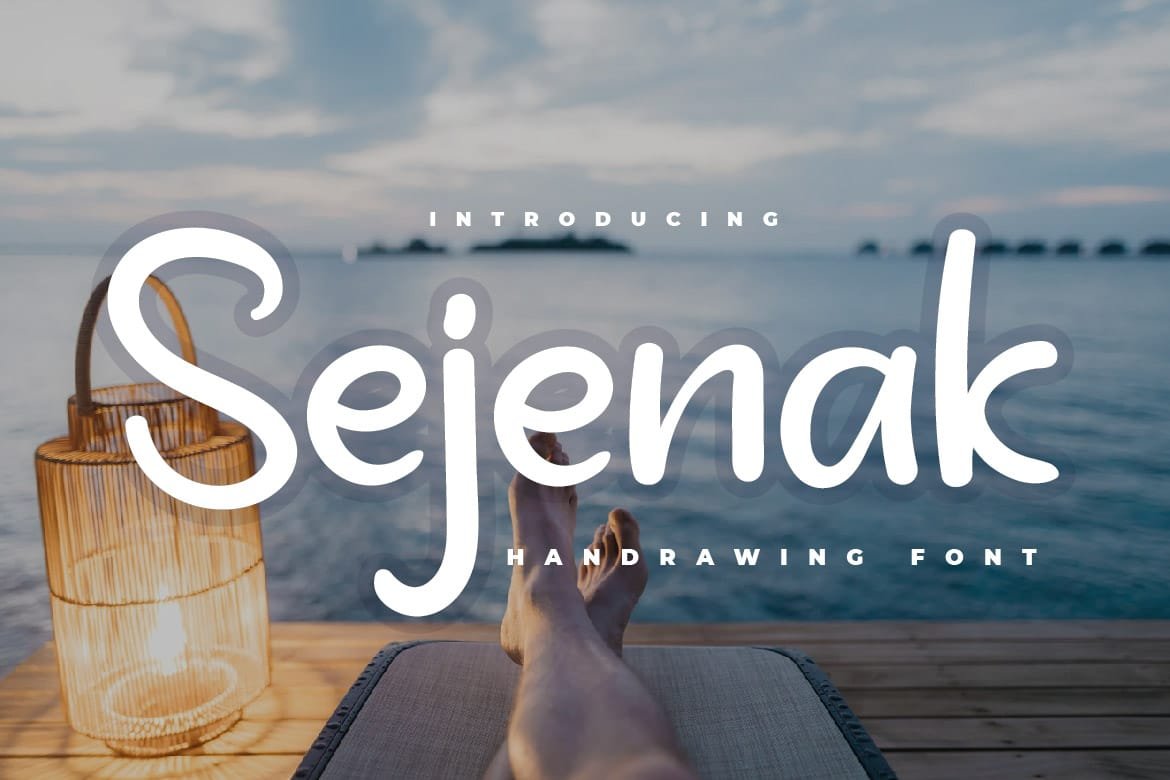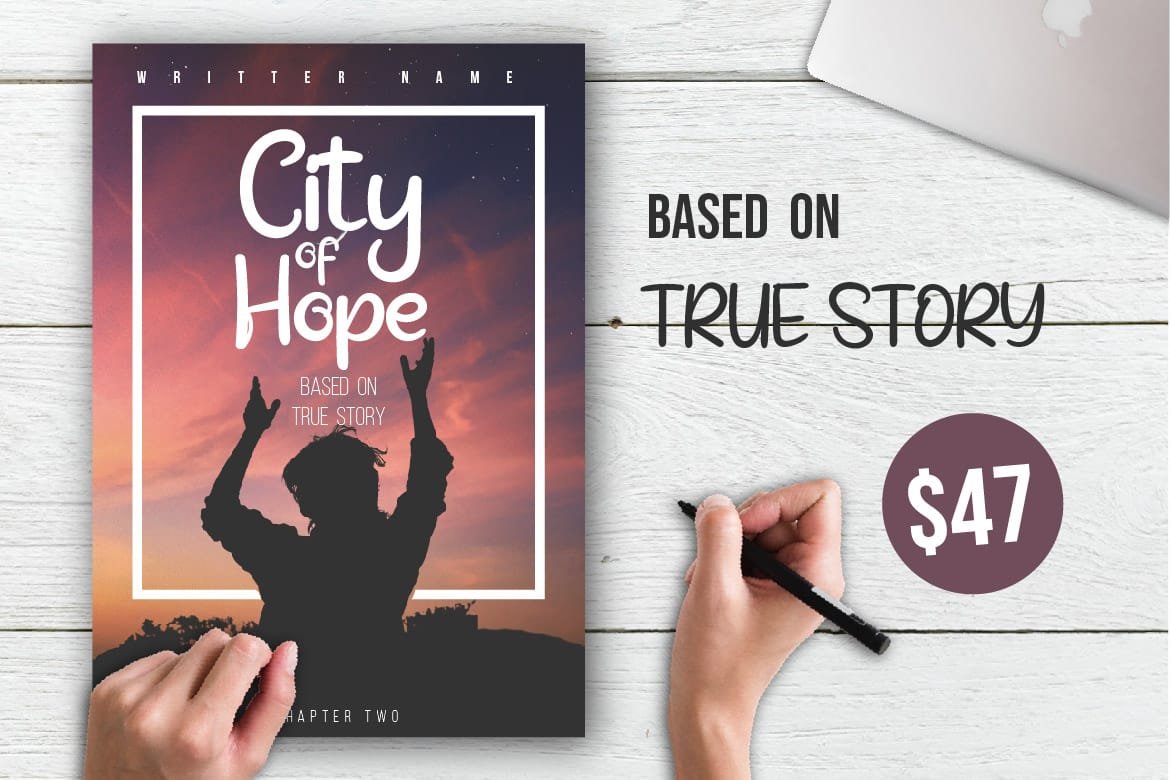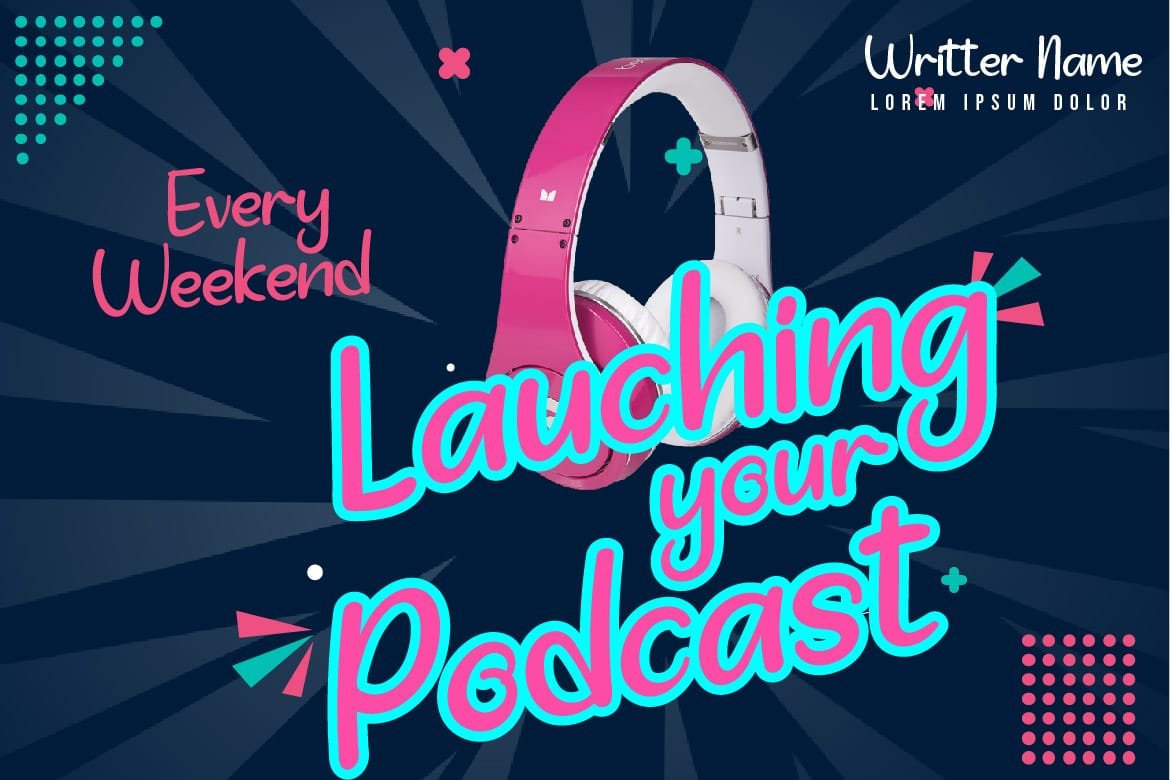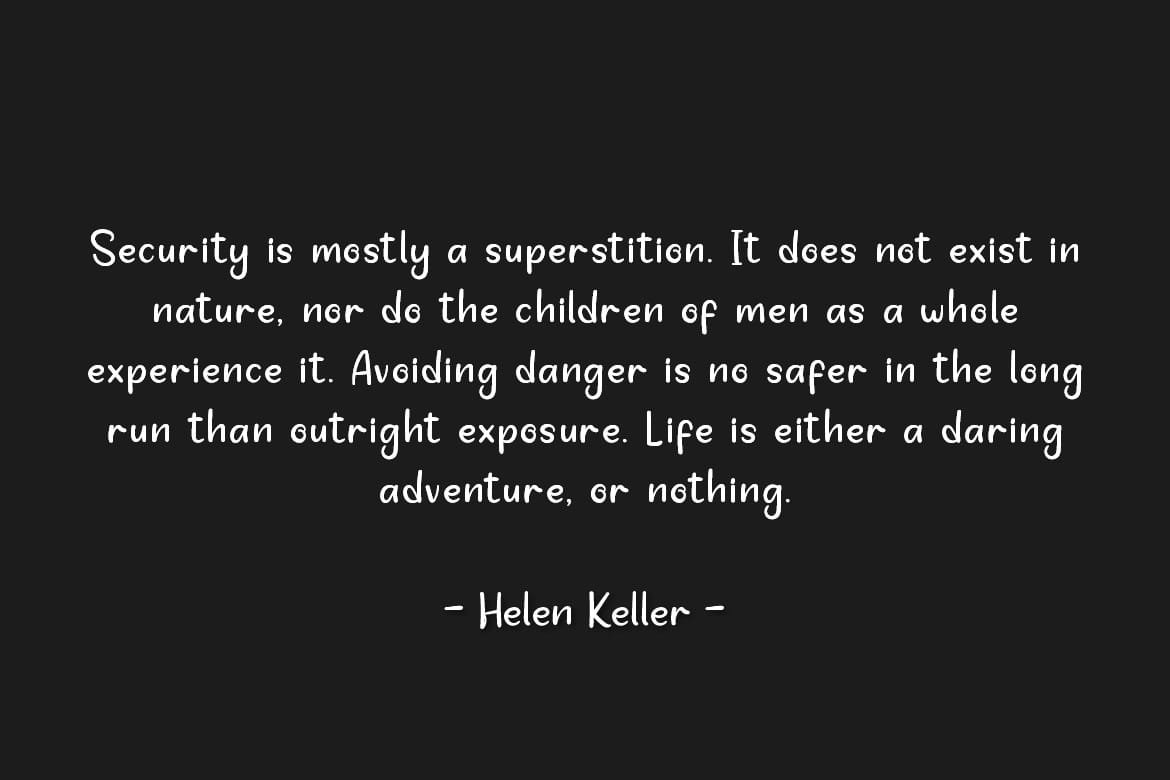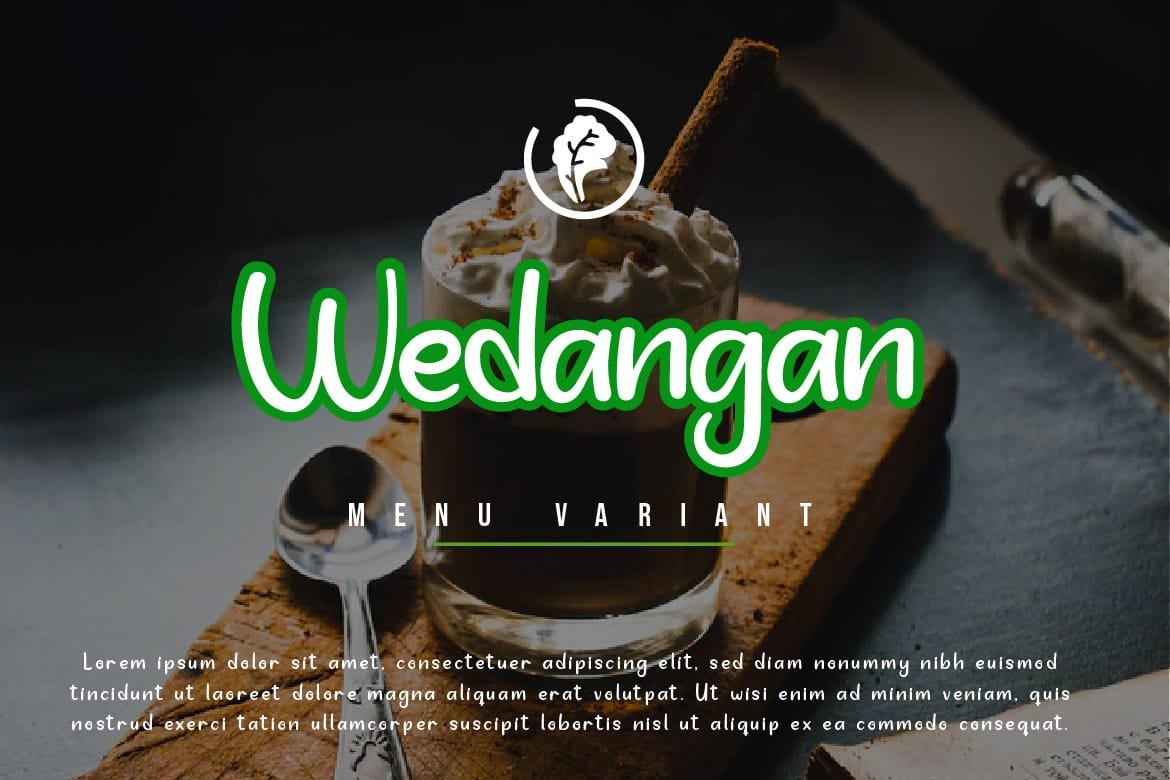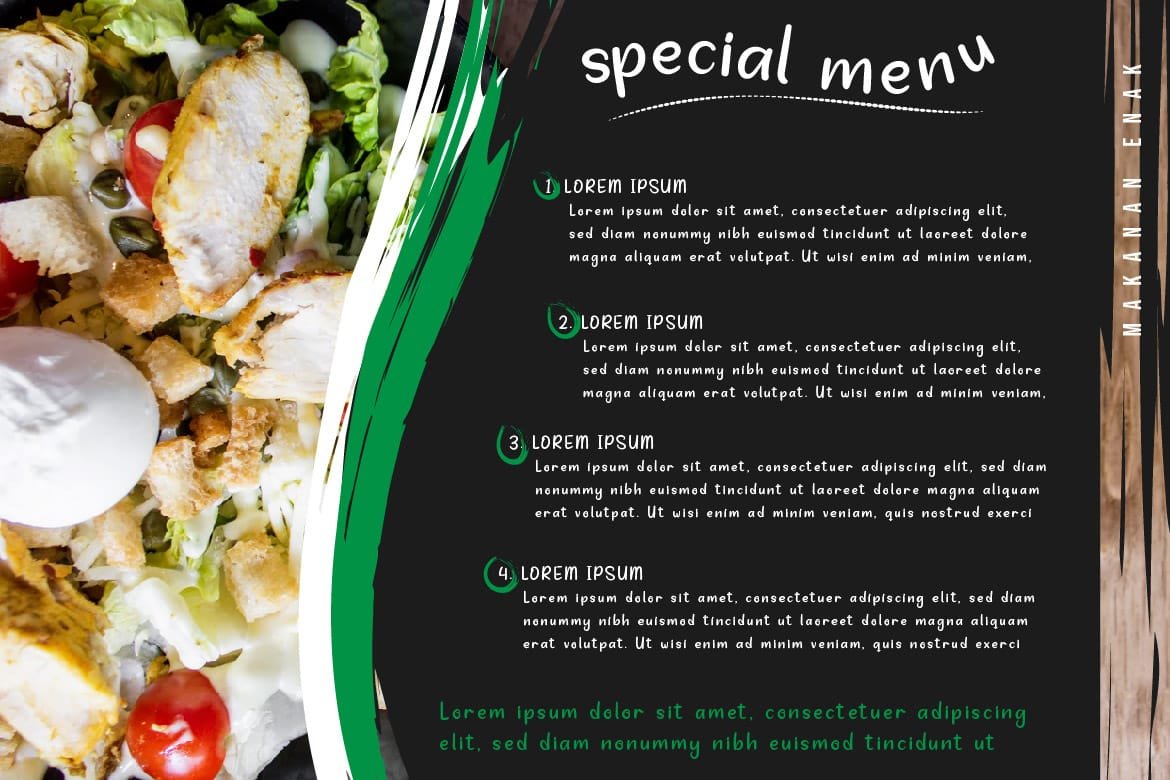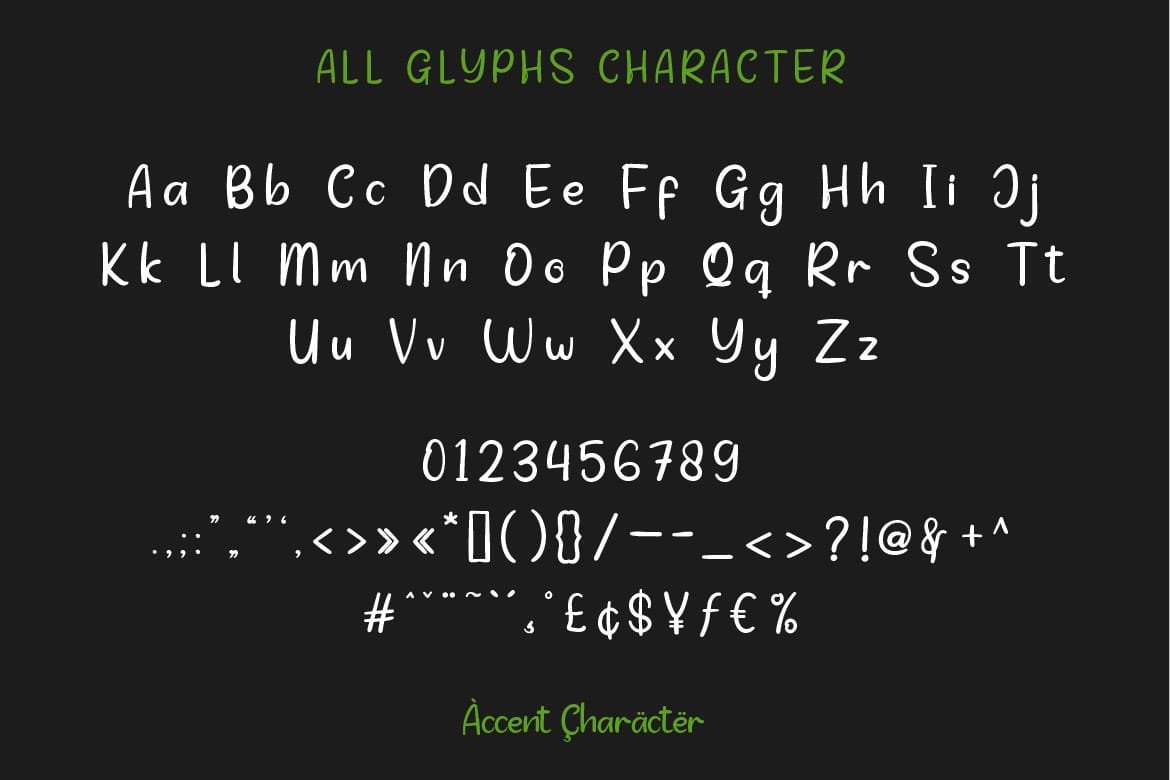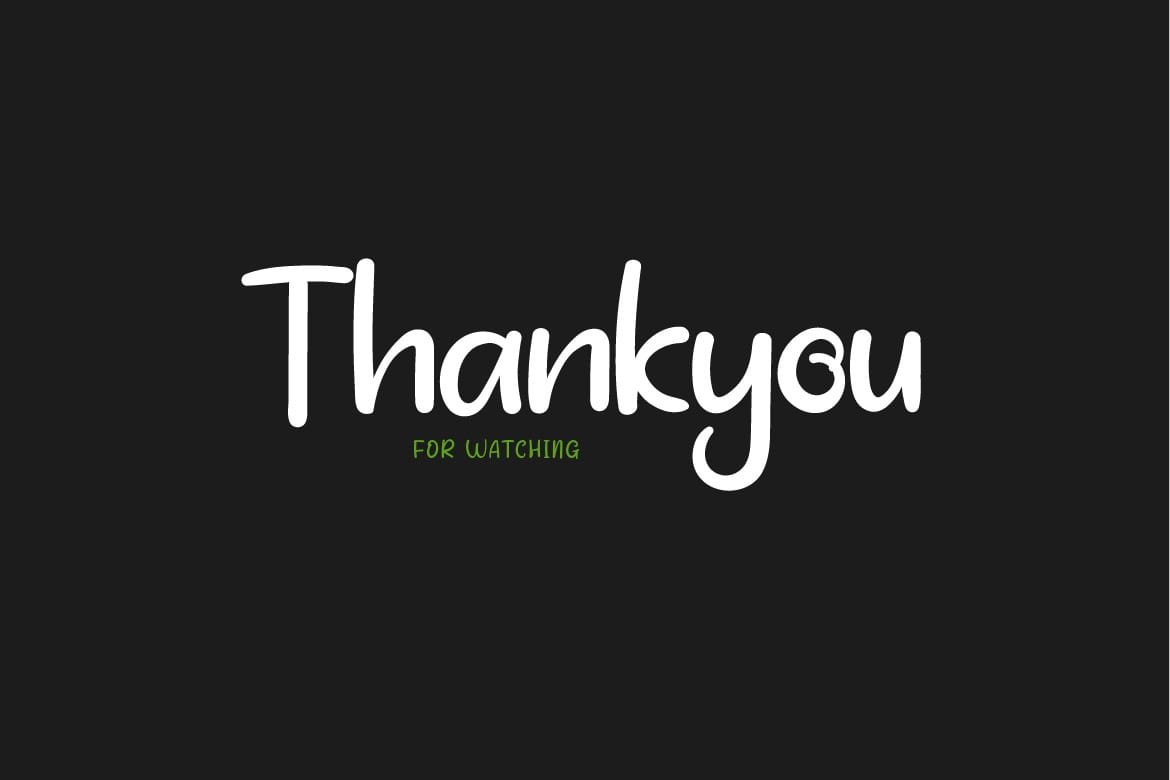
Find your inner peace with Sejenak – Brush Handwritten Font, the font that brings a sense of tranquility and harmony to every project! With its gentle strokes and calming design, Sejenak creates a soothing atmosphere wherever it goes. Whether you’re designing serene meditation guides, crafting relaxing spa brochures, or creating peaceful nature-inspired artwork, Sejenak is your go-to font for creating designs that help people find their Zen. Get ready to unwind and let your creativity flow with Sejenak – the font that’s as peaceful as a quiet moment by the lake!